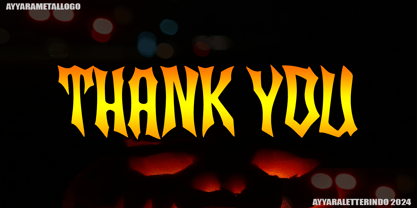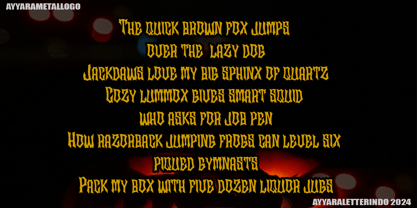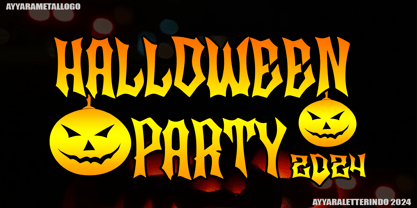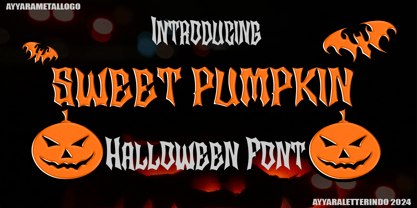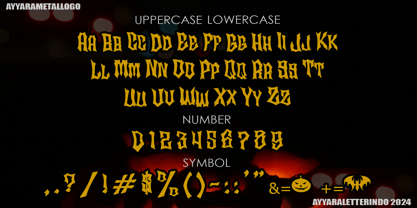
Sweet Pumpkin
by Ayyara Letterindo
The Sweet Pumpkin Font Family was designed by and published by Ayyara Letterindo. Sweet Pumpkin contains 1 styles. More about this family
The Sweet Pumpkin is a captivating and spooky display font designed to perfectly encapsulate the spirit of Halloween. This display font is an ideal choice for creating chilling and eye-catching designs for Halloween-themed posters, apparel, embroidery, crafts, and other festive applications.
Whether you’re designing a chilling Halloween poster, screen printing spooky t-shirts, adding a spooky touch to embroidery work, or crafting decorations for the season, the “Halloween” font is sure to add an extra layer of eerie charm and enchantment to your projects, making them stand out and evoke the true spirit of this spine-tingling holiday.